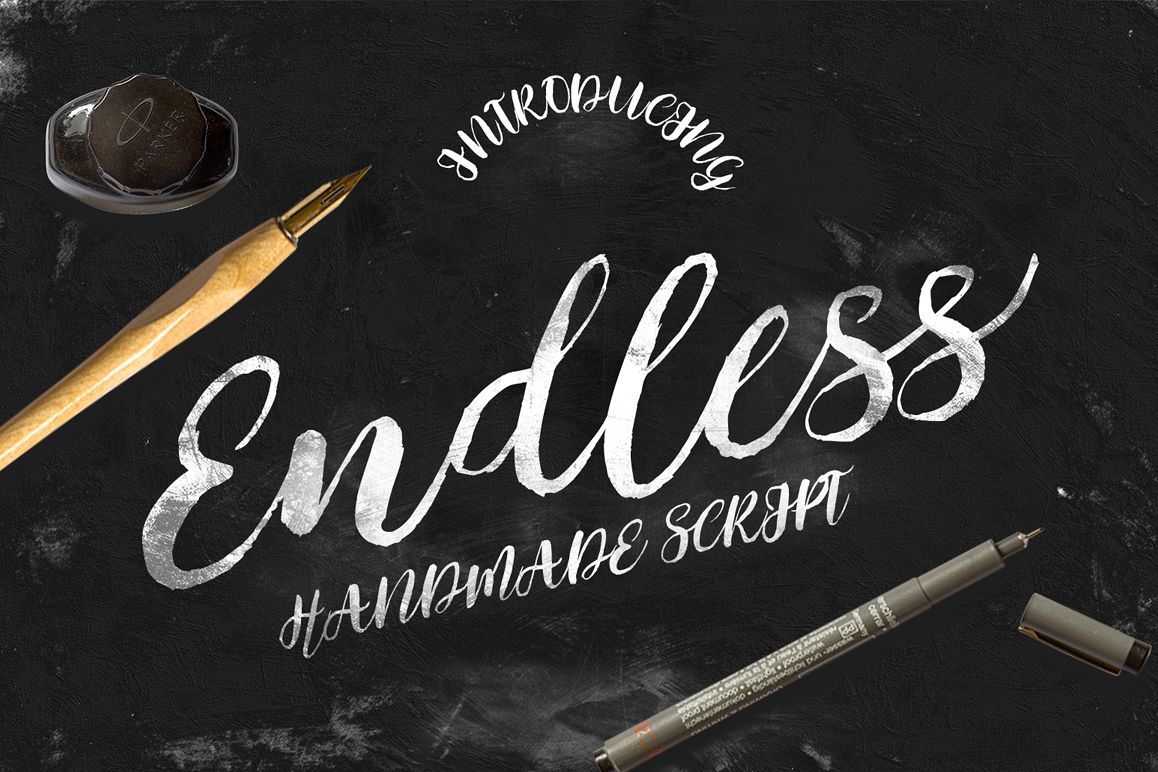
Endless Script
Endless Script beautiful handwritten font. It looks like it has been created with a tiny brush or pencil and is great for adding elegant decorations to your designs.
Looks great on wedding invites, birthday cards, nursery decorations and more.